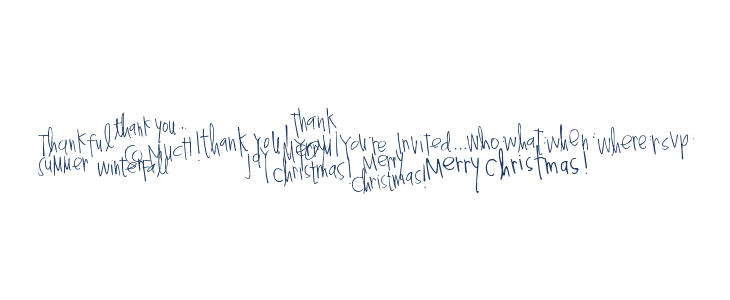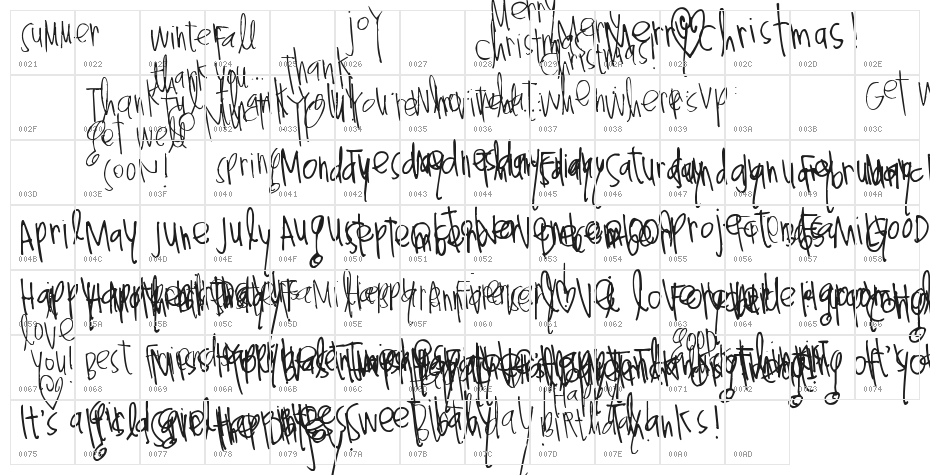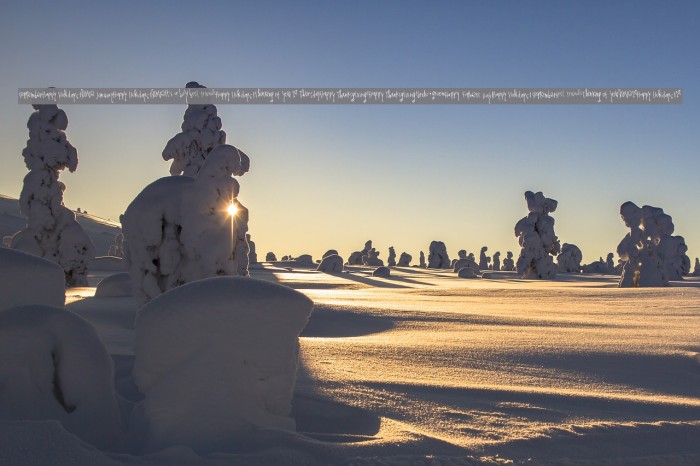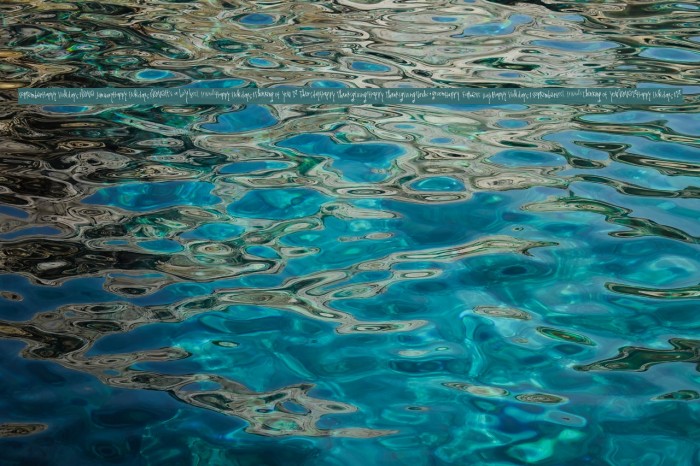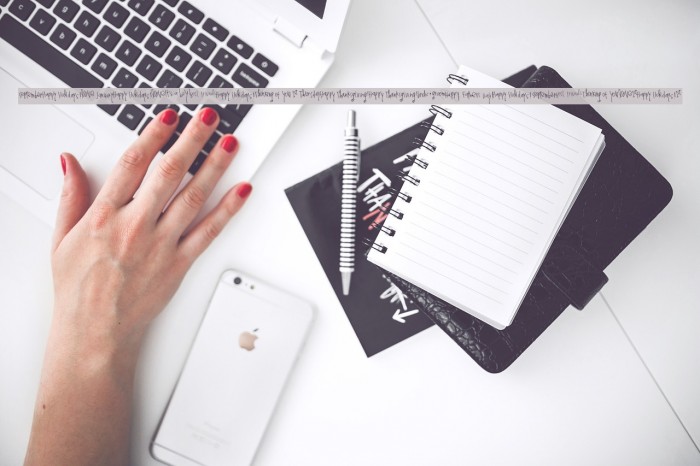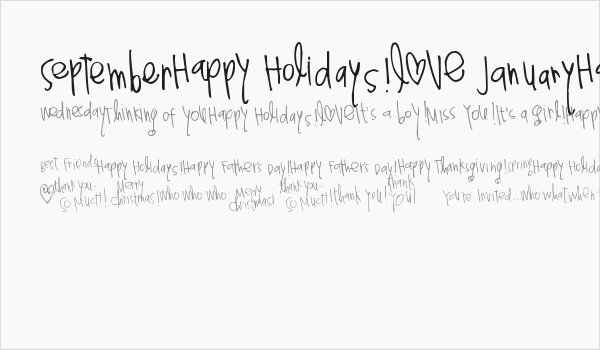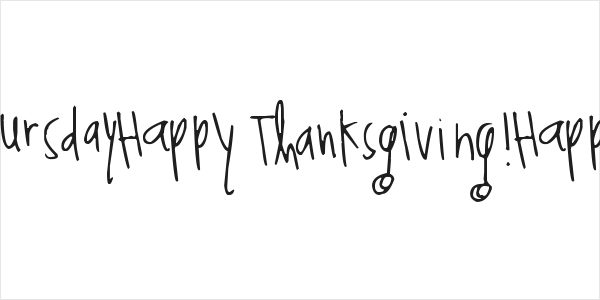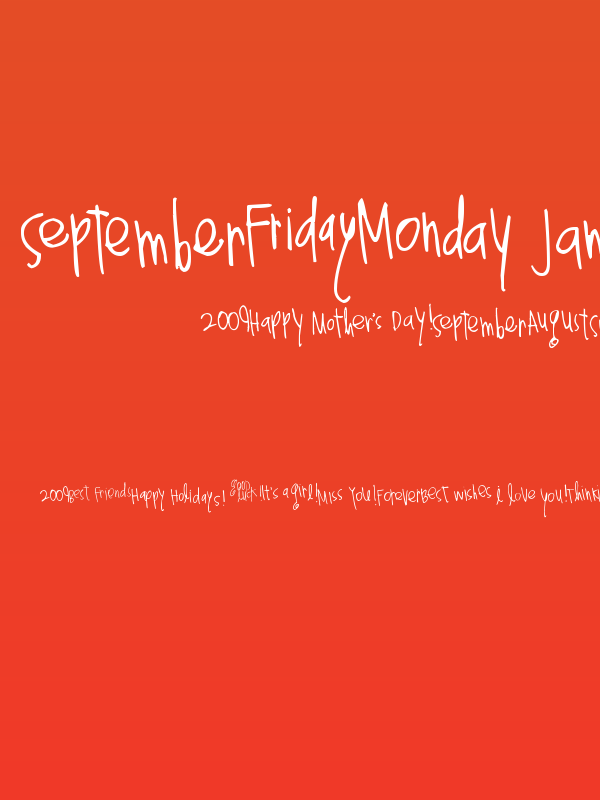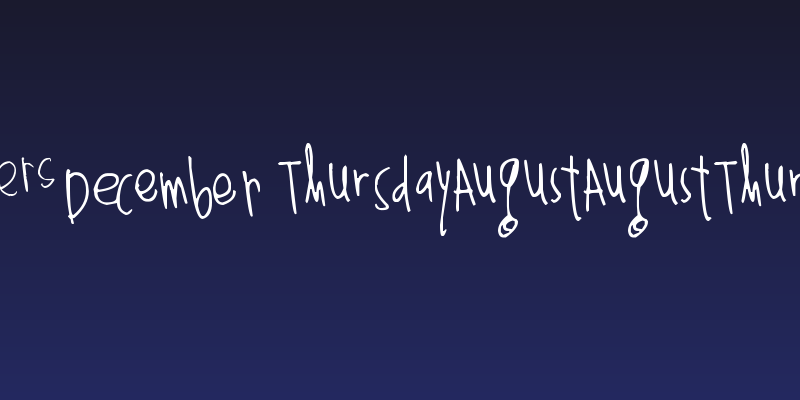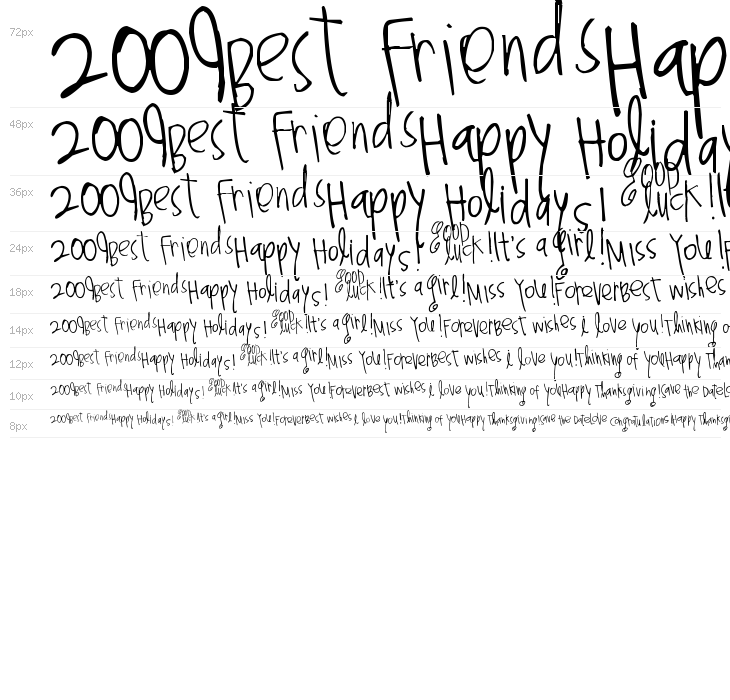
Pea Heather's Doodle Phrases Font
Pea Heather's Doodle Phrases Description
This playful and whimsical font features a handwritten style with a casual and friendly appearance. The letters are irregular and slightly tilted, giving it a personal and informal touch. The strokes are thin and consistent, with a slight variation in thickness that adds to its charm. The font includes a full set of uppercase and lowercase letters, numbers, and a variety of special characters. Its doodle-like quality makes it ideal for creative and fun projects. The spacing between characters is moderate, allowing for readability while maintaining its quirky style.